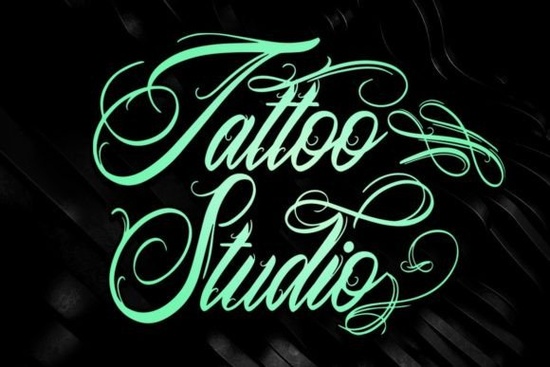
If you're looking for a blackletter font that feels both authentic and modern especially for tattoo-related work the Tattoo Studio Font fits naturally into that space. It’s not just another Old English revival; it’s a carefully drawn blackletter script with tight, intentional kerning and subtle variations in stroke weight and terminal shape. Designed with tattoo artists and studios in mind, it works well on flash sheets, shop signage, apparel, and even metal-inspired merch like band tees or patches.
Who actually uses this kind of font?
This isn’t just for tattoo shops. Print-on-demand sellers use fonts like Tattoo Studio Font for niche apparel lines targeting punk, hardcore, and alternative audiences. Small businesses building local brand identity think barbershops, record stores, or underground art collectives also find its confident, grounded presence useful. Even hobbyists creating custom greeting cards or vinyl sticker designs appreciate how legible and distinctive it stays at medium sizes.
How does it compare to other blackletter styles?
Unlike traditional Old English fonts that can feel dense or hard to read at smaller scales, Tattoo Studio Font balances heritage with clarity. Its letterforms have enough personality to stand out, but not so much ornamentation that they break down in digital previews or print layouts. If you’ve tried vintage Old English fonts and found them too rigid or dated, this one offers more breathing room between characters and more consistency across uppercase and lowercase pairings.
It also differs from California-style blackletters, which often lean into exaggerated swashes and dramatic contrast. While those are great for bold headlines or logos, California-style fonts sometimes sacrifice readability in body text or stacked wordmarks. Tattoo Studio Font sits comfortably between the two: structured enough for branding, expressive enough for artistic projects.
Where does it work best in real projects?
- Flash sheets and tattoo portfolios: Clean spacing and clear letter shapes help clients read names, dates, or short phrases without squinting even when printed small.
- T-shirt and hoodie designs: Works especially well layered over distressed textures or paired with simple line art (e.g., roses, daggers, anchors).
- Shop signage and window decals: Holds up well at larger sizes without looking overly ornate or cartoonish.
- Digital assets like Instagram story templates or Canva banners: Renders cleanly across devices thanks to solid hinting and consistent metrics.
You’ll also notice it pairs nicely with bolder sans-serifs or rugged slab fonts for contrast something many designers experiment with when building full brand kits. For example, pairing Tattoo Studio Font with Captain Victory Font gives you two distinct blackletter voices: one grounded and precise, the other more decorative and vintage-leaning. That kind of flexibility helps avoid visual fatigue when using multiple typefaces across a single project.
If you’re used to working with blackletter fonts that require manual tweaks to fix awkward letter spacing, you’ll appreciate how much time Tattoo Studio Font saves. Its built-in kerning is thorough not perfect for every possible combination, but close enough that most words look balanced right out of the box.
A quick checklist before downloading
- ✅ You need a blackletter font that reads clearly at both small and large sizes.
- ✅ Your project relates to tattoo culture, alternative fashion, or underground aesthetics but doesn’t rely on cliché “gothic” tropes.
- ✅ You want something more refined than free blackletter downloads, but don’t need ultra-decorative swash variants.
If those match your needs, Tattoo Studio Font is worth testing alongside your current favorites. Try it in a mock-up next to vintage Old English fonts or California-style fonts to see how its balance of tradition and clarity holds up in context.